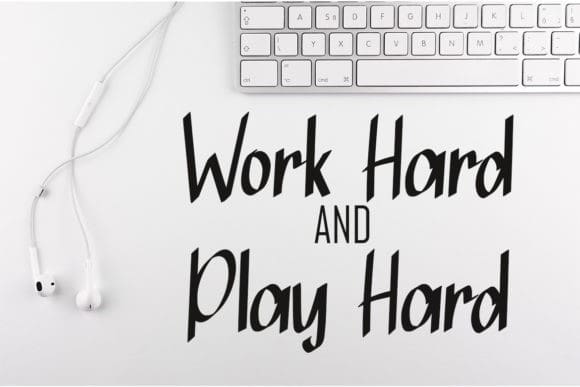
Selfros Font
Selfros Font is a cool and trendy display font. This font is imposing and features uniquely shaped letters, and as a result, it will easily match a wide range of creations that require a distinct touch.